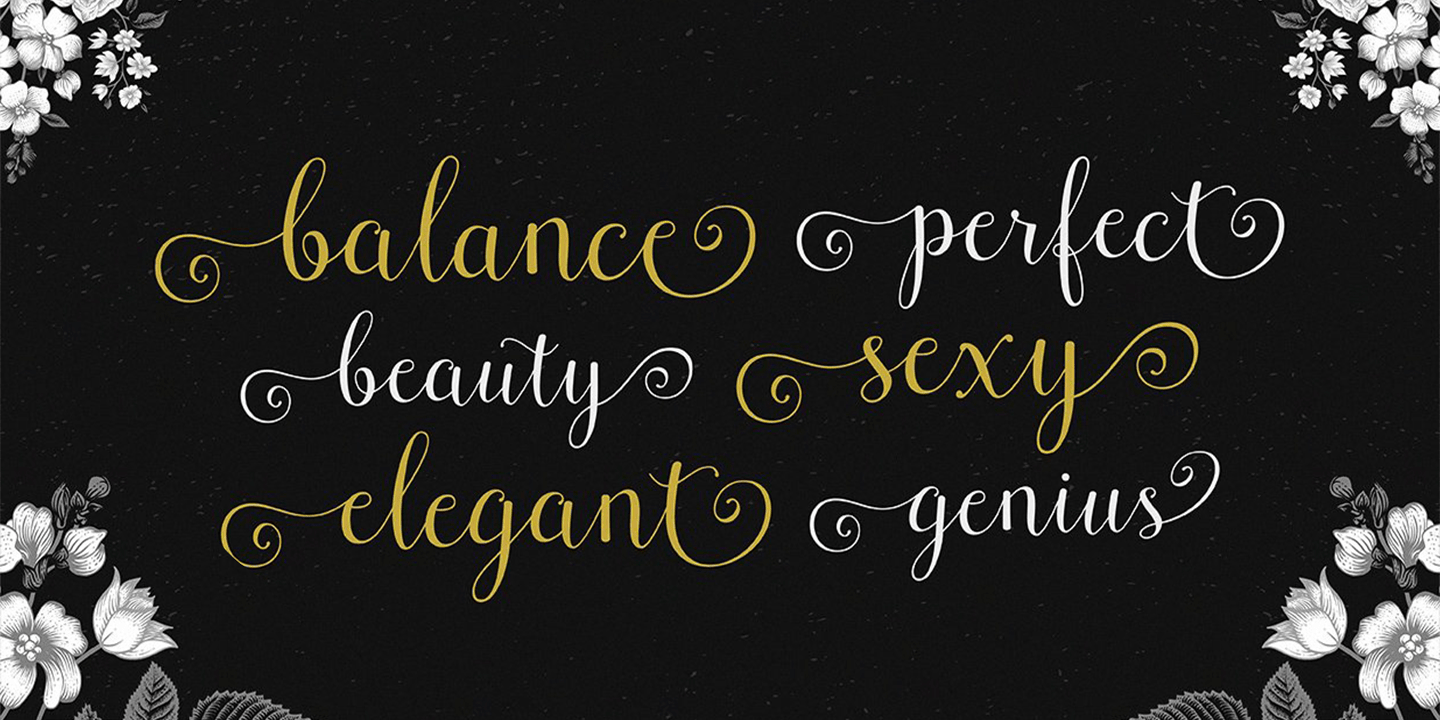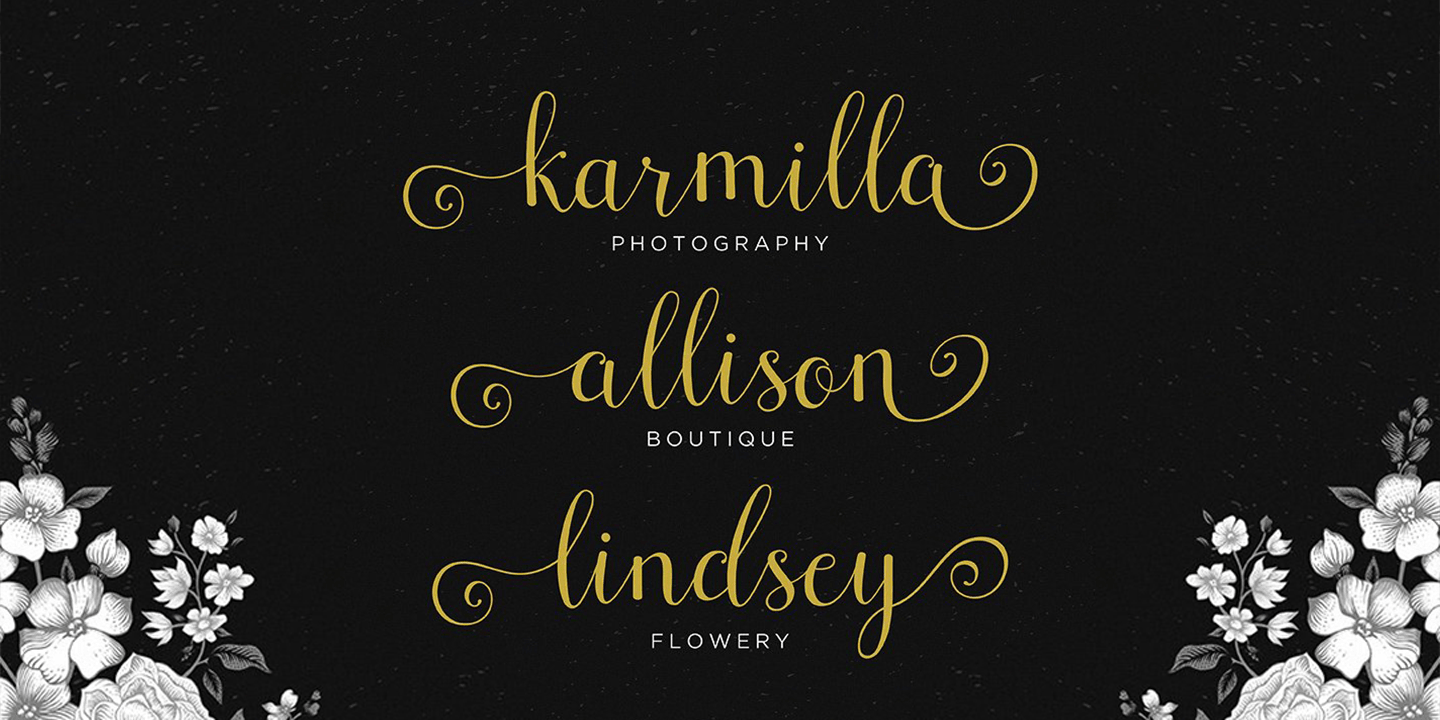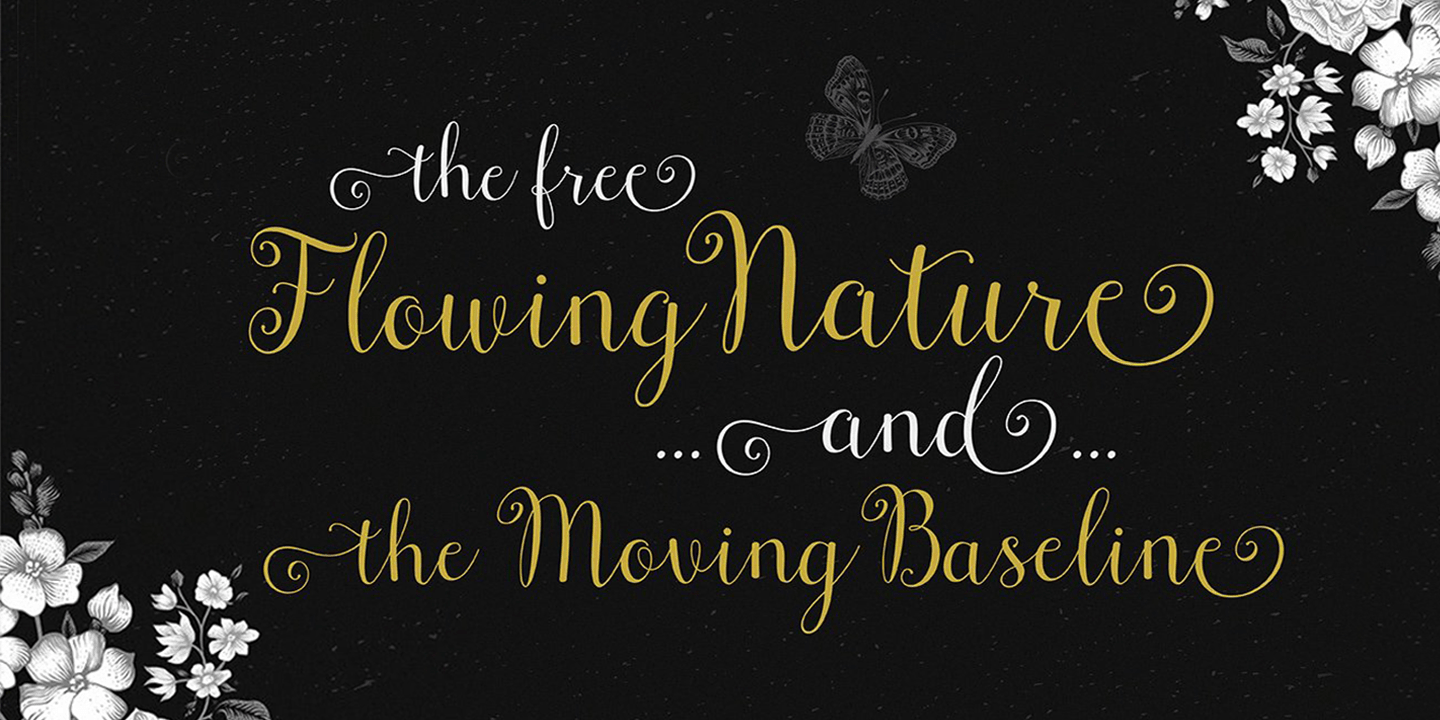
About Cresilda Script
Cresilda Script is a fluid handwritten calligraphy fonts, combining calligraphy typefaces with a free flowing and moving baseline. It has a casual, yet elegant touch. Features 270+ glyphs and 79 alternate characters, including initial and terminal letters,…